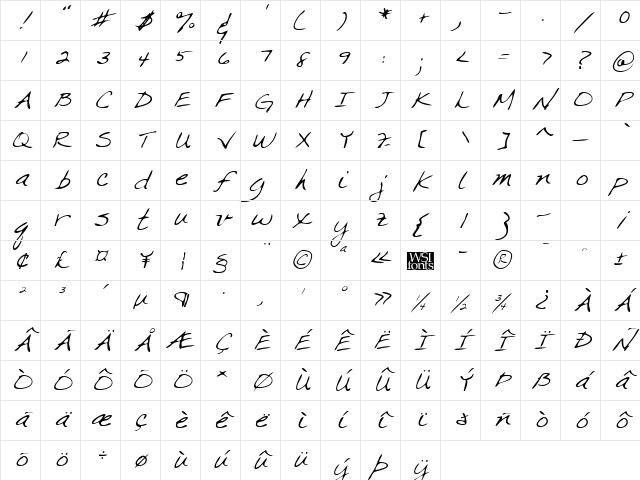
CrystalsHand Italic Free Font
CrystalsHand Italic
Design Context for CrystalsHand
CrystalsHand flows with the natural rhythm of handwritten lettering, making it ideal for designs that call for warmth and personal expression.
Font Pairing: Combine CrystalsHand with a simple geometric sans for maximum contrast - the tension between flowing curves and clean structure is a classic typographic pairing.
Pro Tip: Use CrystalsHand for short runs of text - names, titles, or taglines. Extended body copy in script faces tires the eye quickly.